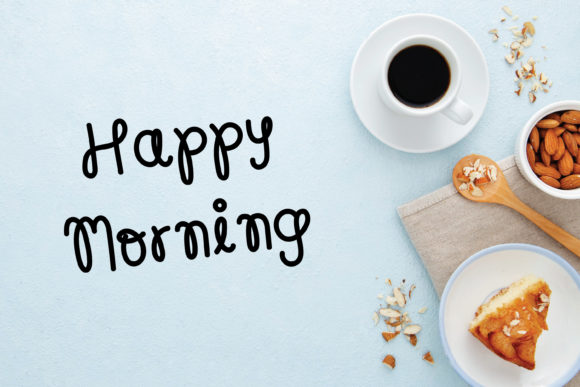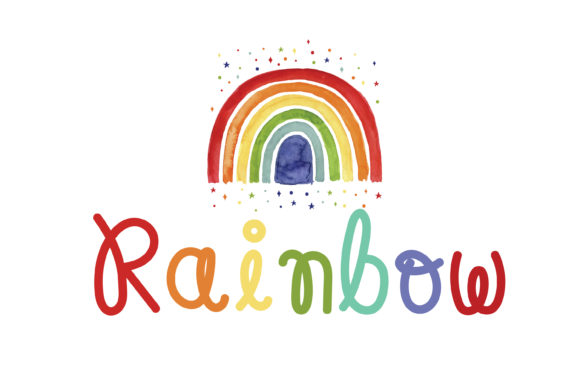
Rope Font
db-ku.com - Script & Handwritten -- Rope is a sweet and friendly handwritten font. Its natural and unique style makes it incredibly fitting to a large pool of designs. The only limit is your imagination!